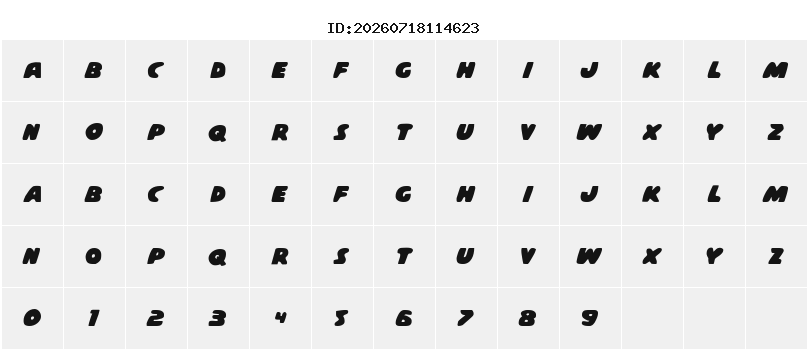
• Font Name: Casper Comics Solid
About Casper Comics Solid.ttf
Casper Comics Solid.ttf is a modern, elegant sans-serif font designed for ultimate readability and visual harmony. Perfect for branding, headlines, web design, and print materials.